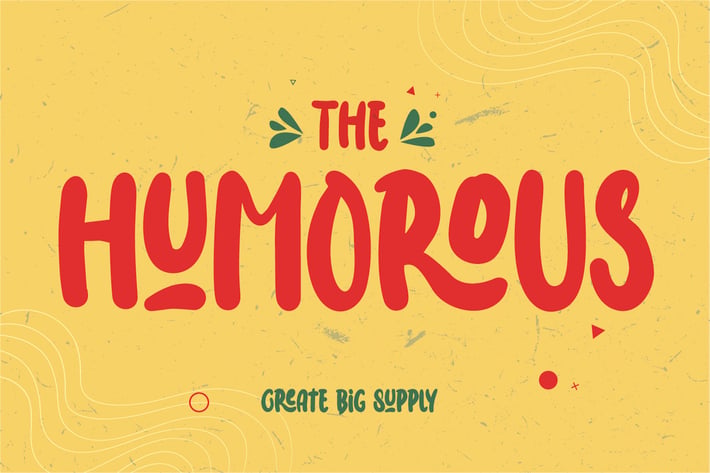
The Humorous - Happy Display Font
The Humorous is a font with a fun, happy style, but still has a firm character, has so many features of ligatures
Features:\
+Uppercase & lowercase
+Numbers and punctuation
+Multilingual
+Ligatures